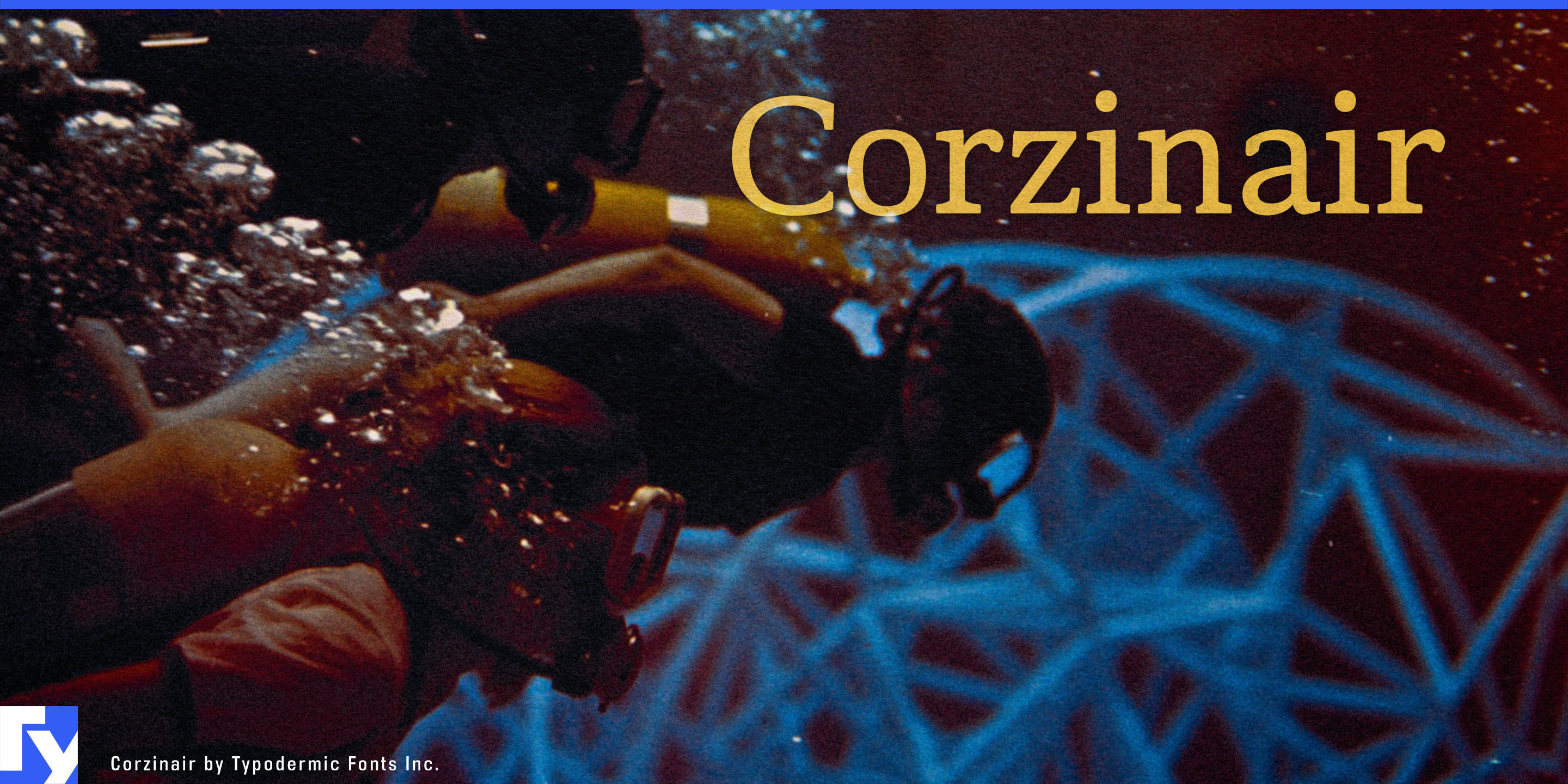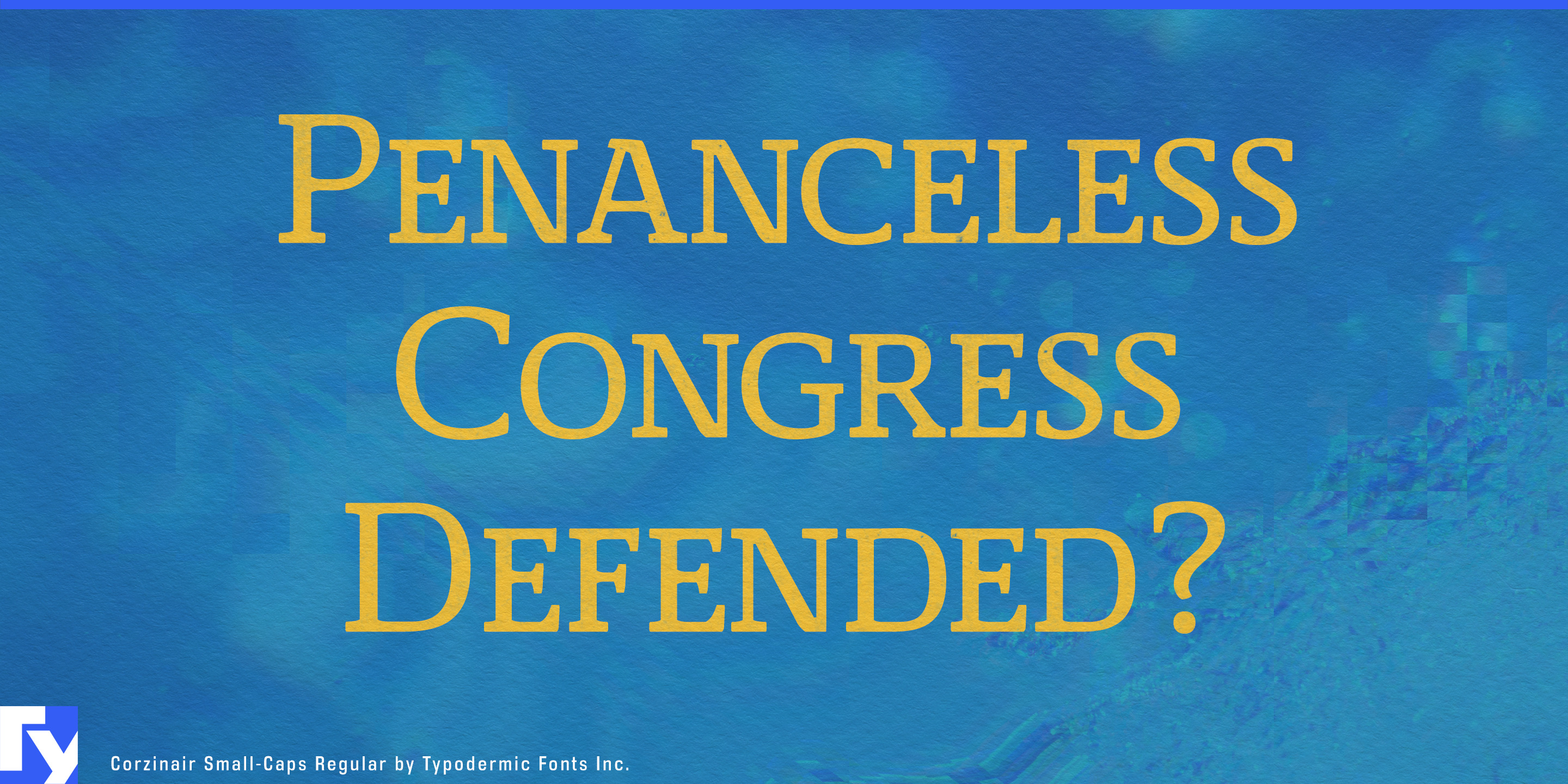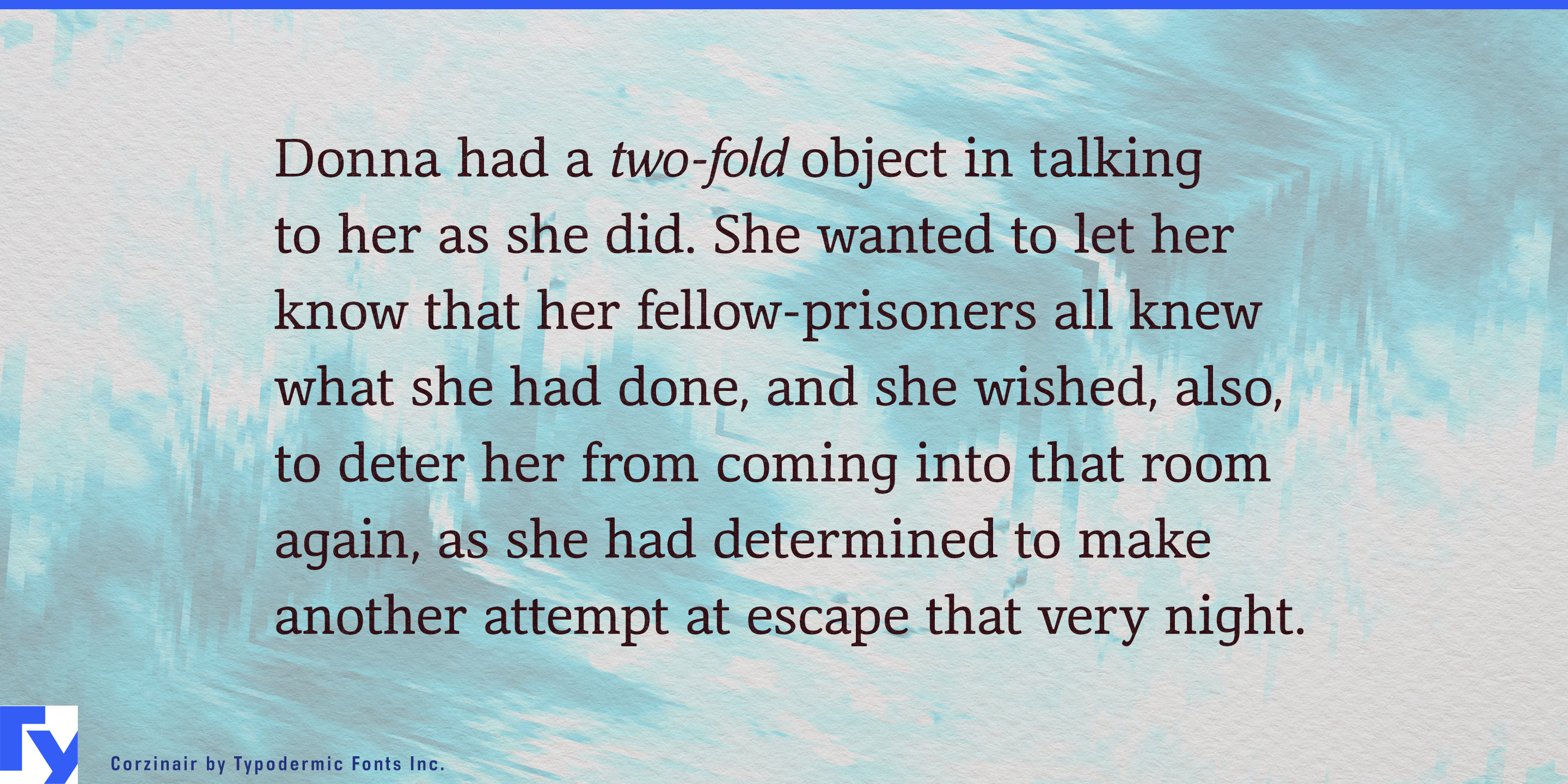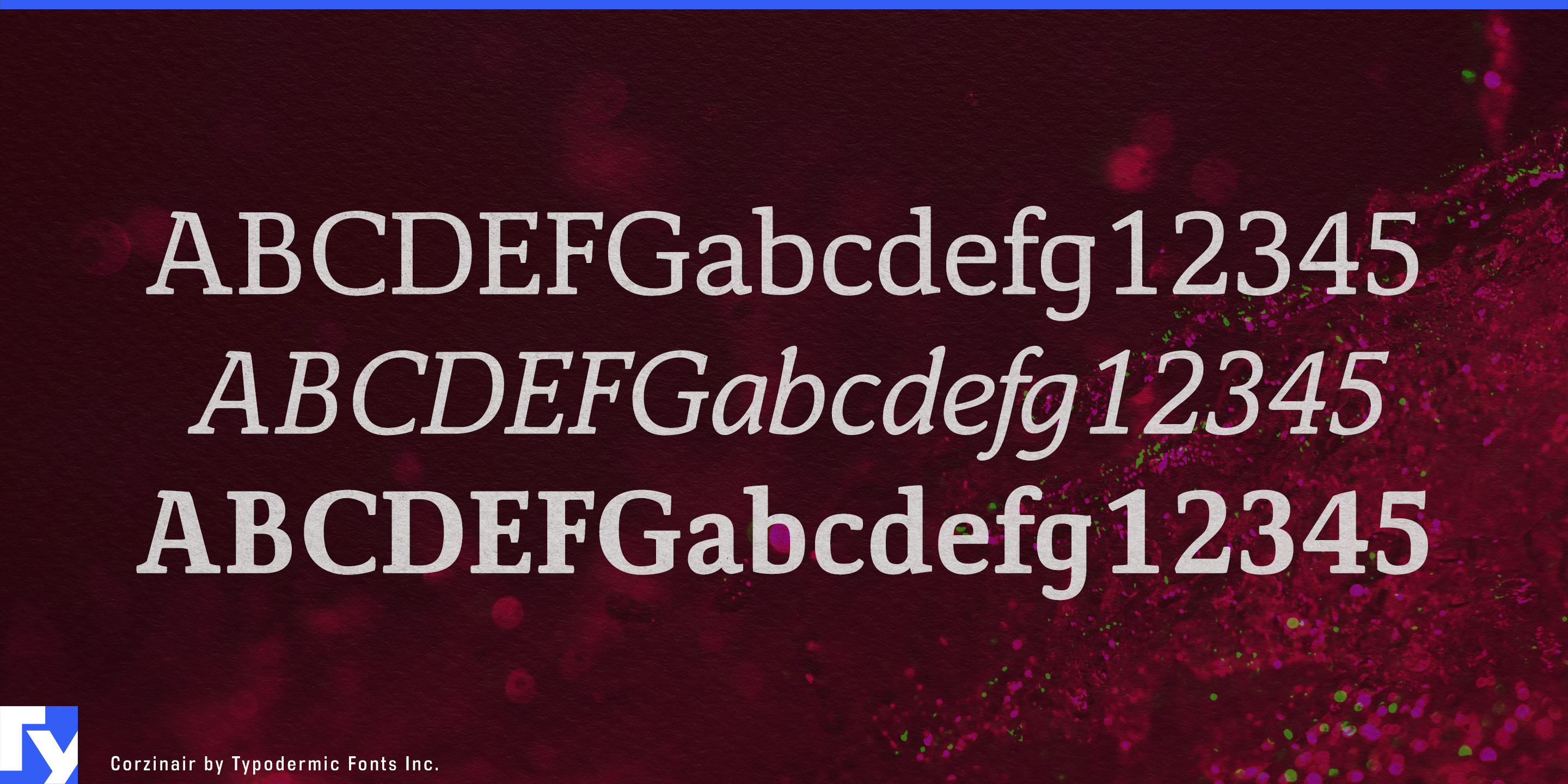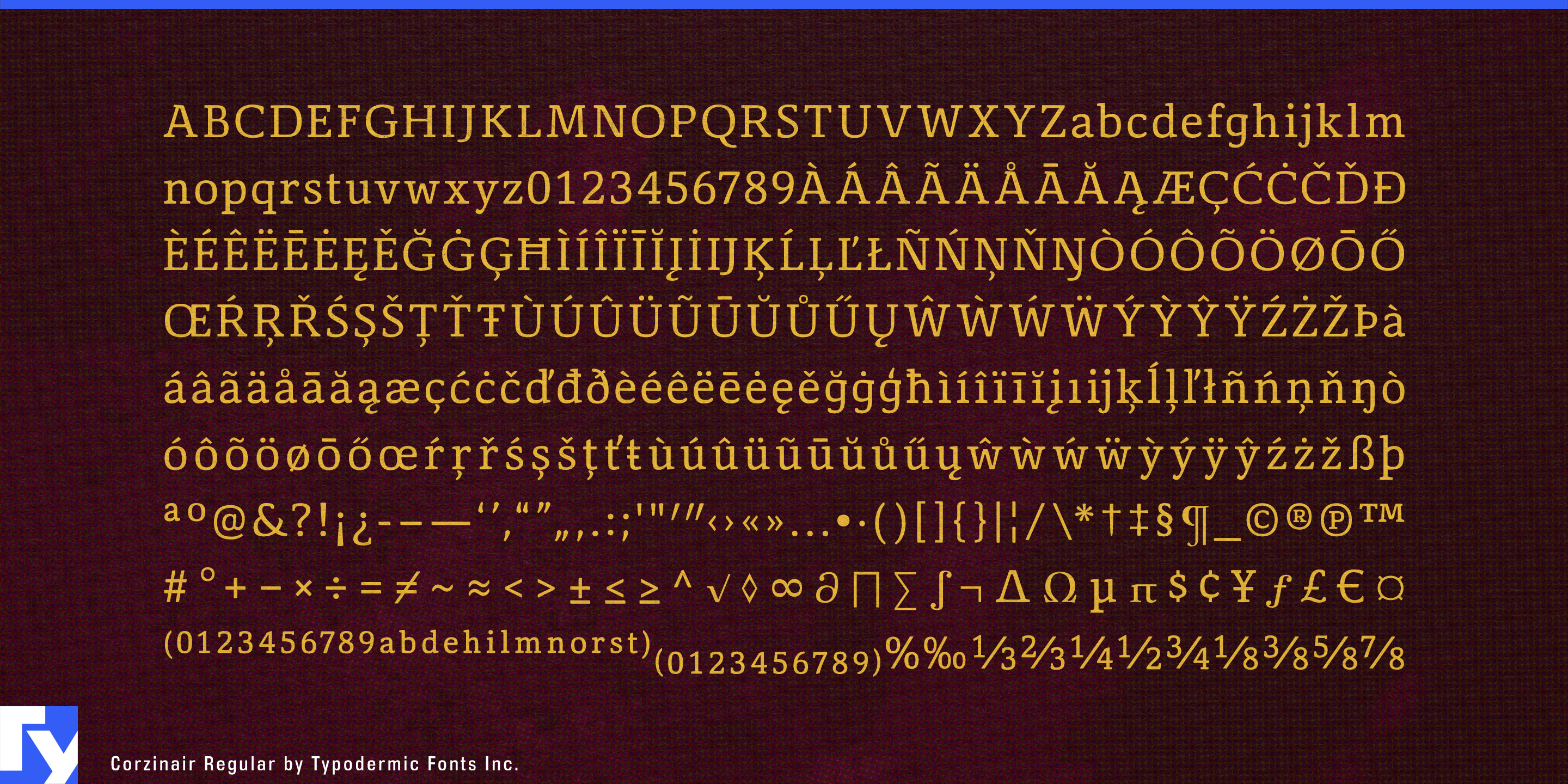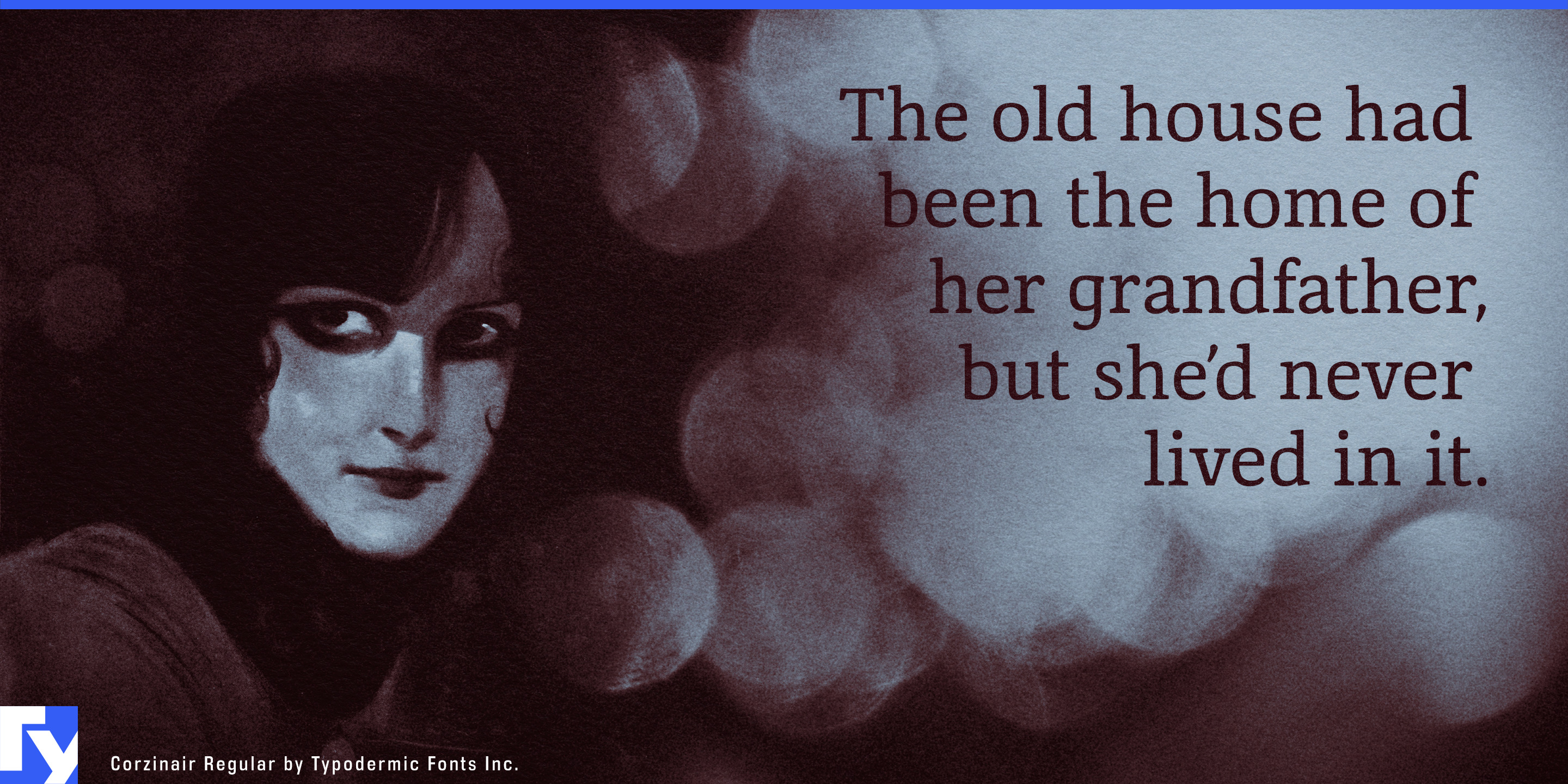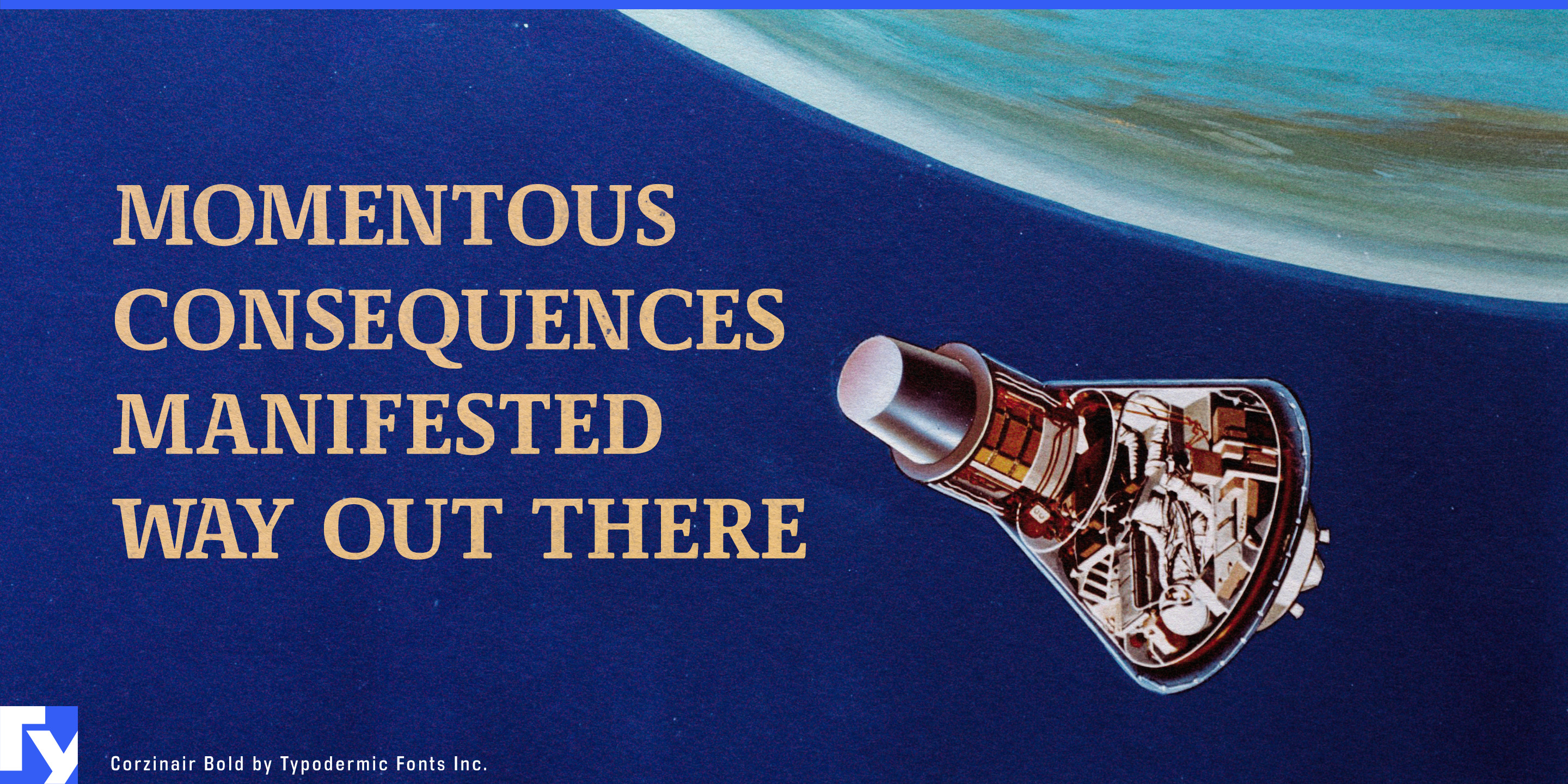
Corzinair
Corzinair is a serif for information that needs to feel recorded, classified, and consequential. Its wide, squarish forms and blunt serifs grew from an interest in 1960s typewriter lettering, but the result is cleaner and more deliberate than a literal typewriter face. It carries some of the documentary gravity of office and institutional typography without turning the page into an exercise in nostalgia.
That distinction is increasingly useful as manufacturers and technology companies publish more information about where products came from, what they contain, how they were serviced, and whether they meet regulatory or environmental requirements. Digital product passports, battery passports, material records, repair histories, recycled-content declarations, lifecycle summaries, and component documentation all need a visual language that feels more substantial than ordinary corporate web typography.
Corzinair can establish report titles, section headings, certification summaries, product-record pages, and QR-linked documentation while a quieter companion face handles dense tables and technical data. Its separate small-caps styles are especially useful for documentary hierarchies such as MATERIAL ORIGIN, SERVICE HISTORY, RECYCLED CONTENT, COMPONENTS, REPAIRABILITY, and CERTIFICATION.
AI governance creates a similar typographic problem. Assurance firms, standards organizations, enterprise AI teams, and governance platforms produce risk assessments, model documentation, audit summaries, control frameworks, incident reports, and technical assurance material that needs to look checked and accountable rather than promotional. Corzinair gives report covers, model-card titles, assurance statements, and category headings a firmer institutional voice.
Certification and compliance services can use the same character across cybersecurity assurance, environmental certification, laboratory testing, quality management, supply-chain auditing, and standards work. Legal and regulatory technology adds another setting: contract intelligence, e-discovery, litigation analytics, due diligence, regulatory monitoring, and virtual data rooms all turn large bodies of documentary material into structured summaries.
Industrial provenance extends the idea into aerospace components, certified replacement parts, laboratory samples, maintenance records, and high-value equipment service histories. Corzinair works best where information needs more weight than a standard corporate sans can provide, but a literal typewriter face would make the system feel historical.